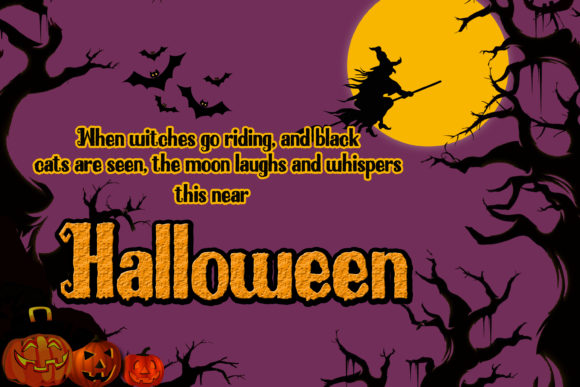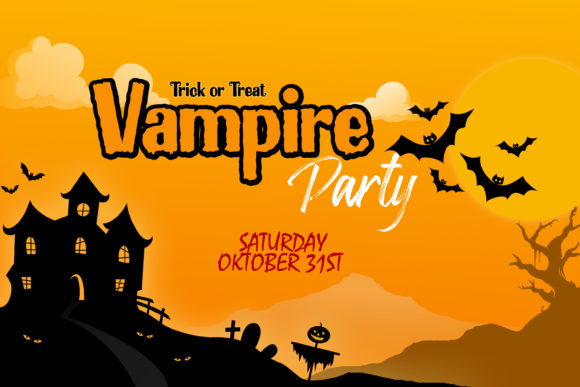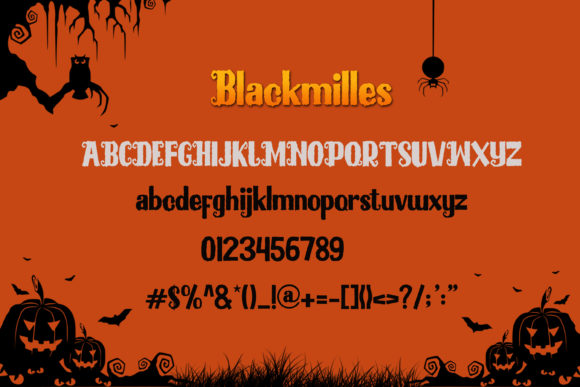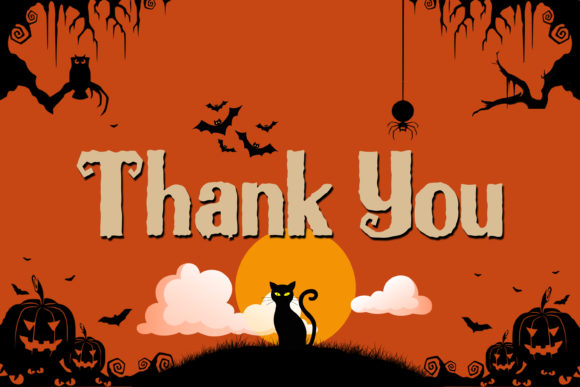
Unleash the Spooky Spirit with Blackmilles Font: The Ultimate Display Font for Halloween
As the spookiest time of the year approaches, designers and crafters are on the lookout for the perfect font to add a touch of eeriness to their creations. Look no further than Blackmilles Font, a display font designed specifically with Halloween in mind. In this article, we’ll dive into the details of this fantastic font and explore how it can elevate your Halloween-themed crafts and designs.
What is Blackmilles Font?
Blackmilles Font is a display font that embodies the spirit of Halloween. With its bold, edgy design, it’s perfect for creating eye-catching titles, headings, and graphics that scream spooky fun. The font’s distressed texture and irregular shapes give it a hauntingly authentic feel that’s sure to send shivers down the spine.
Key Features of Blackmilles Font
- Unique and quirky design: Blackmilles Font boasts a one-of-a-kind design that’s sure to stand out from the crowd. Its irregular shapes and distressed texture give it a delightfully spooky feel.
- Perfect for display text: With its bold and eye-catching design, Blackmilles Font is ideal for display text, such as titles, headings, and graphics.
- Instantly recognizable: The font’s Halloween-inspired design makes it instantly recognizable as a spooky-themed font, perfect for creating seasonal crafts and designs.
Uses for Blackmilles Font
Blackmilles Font is incredibly versatile and can be used in a variety of ways to add a spooky touch to your crafts and designs. Here are a few ideas to get you started:
- Halloween party invitations: Create eye-catching invitations that set the tone for a spooktacular party.
- DIY Halloween decorations: Use Blackmilles Font to add a spooky touch to your DIY decorations, such as signs, banners, and garlands.
- Halloween-themed crafts: Add a touch of eeriness to your Halloween-themed crafts, such as pumpkins, ghosts, and bats.
- Graphic design projects: Use Blackmilles Font in your graphic design projects, such as logos, brochures, and posters, to add a spooky touch.
Tips for Using Blackmilles Font
To get the most out of Blackmilles Font, here are a few tips to keep in mind:
- Use it sparingly: Blackmilles Font is a bold font, so use it sparingly to avoid overwhelming your design.
- Pair it with complementary fonts: Pair Blackmilles Font with complementary fonts to create a visually appealing design.
- Experiment with colors: Experiment with different colors to find the perfect combination that complements your design.
Blackmilles is a display font, perfect for all things Halloween! It will add a spooky touch to any craft, making it a great addition to your font collection.